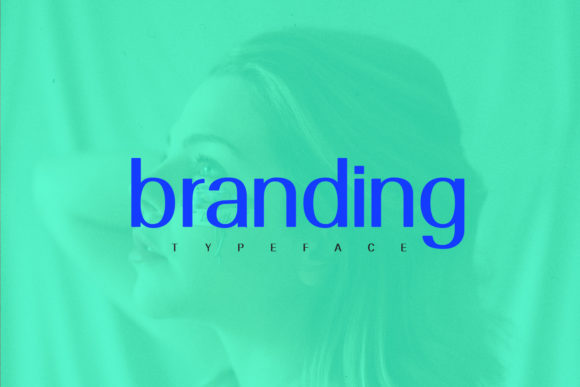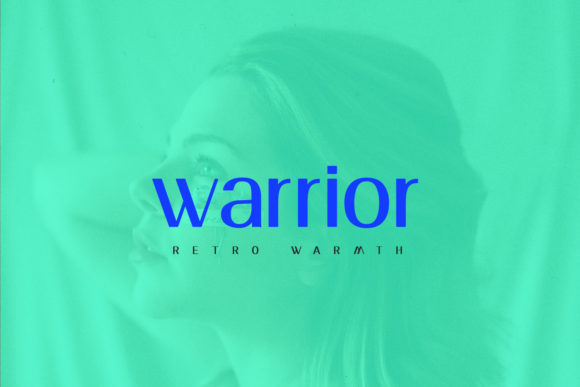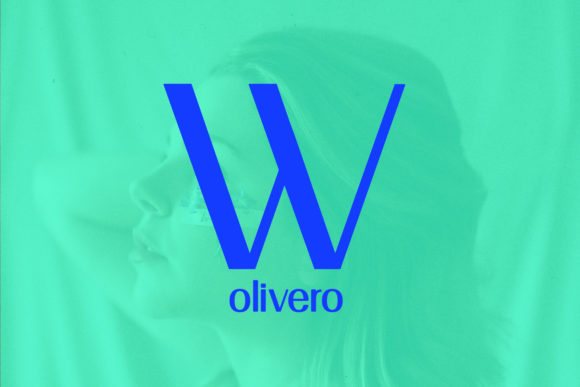
Introduction to Olivero Font
Have you ever been stuck in front of a blank design canvas, struggling to find the perfect font to bring your creative project to life? I know I have. It’s that moment when you’re about to give up, but then you stumble upon a hidden gem – a font that speaks to your design soul. For me, that gem was the Olivero Font, a minimalist sans serif font that has been a game-changer in my design journey.
What sets Olivero Font apart is its simplicity and versatility. It’s a high-quality design resource that can elevate any design project, from digital to print. Its clean lines and transparent background make it a perfect fit for modern designs. And the best part? It’s available for free download, making it an invaluable resource for designers of all levels.
Key Features of Olivero Font
- Designed to provide a unique and stylish touch to any design, with a size of 256 glyphs
Honest Review: Olivero Font
I recently stumbled upon the Olivero Font, and I must say it’s a game-changer for any design enthusiast. This free download is a high-quality design resource that can elevate your creative project to the next level.
- ✨ Beautiful, elegant design that adds a touch of sophistication to any project.
- ✨ Great for use on a transparent background, allowing your design to truly shine.
- ✨ Perfect for creating a unique and memorable brand identity.
However, like any design resource, the Olivero Font has its limitations.
- ⚠️ Limited font styles and variations, which may not be ideal for more complex design projects.
- ⚠️ May not be suitable for use on a non-transparent background, as the design can get lost.
Overall, the Olivero Font is a great addition to any design library. While it may have some limitations, its high-quality design and ease of use make it a valuable resource for any creative project.
Tips for Getting the Most Out of Olivero Font
Use Olivero Font in creative projects where a unique and stylish font is required. Experiment with different font sizes, colors, and styles to achieve the desired effect. Combine Olivero Font with other design elements, such as images and graphics, to create a visually appealing design.
Olivero Font is suitable for various design projects, including branding, marketing materials, and digital content. It’s a great choice for designers who want a high-quality, free download font that can be used in a variety of creative projects.